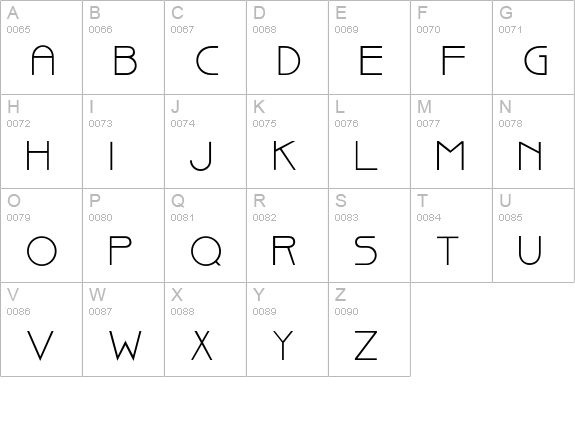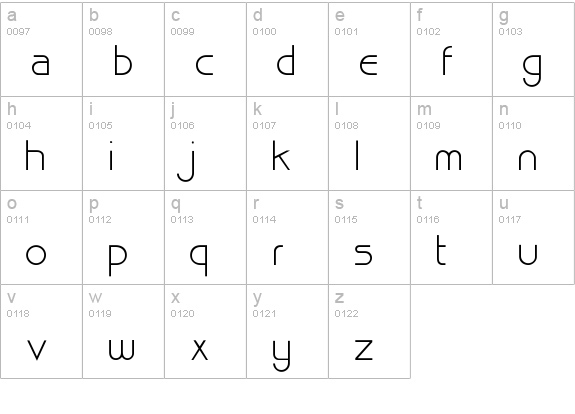
BisqueFont is a whimsical and elegant font that exudes a charming and inviting vibe. Its soft curves and unique design make it perfect for a variety of creative projects, from greeting cards to branding materials. The versatility of BisqueFont allows it to be used in a wide range of contexts, adding a touch of sophistication and playfulness. What's even better is that BisqueFont is available for free download at FontsMarket.com. This means you can easily access this delightful font and incorporate it into your designs without any hassle. Whether you're a seasoned designer or just starting out, BisqueFont is sure to inspire and elevate your projects. Download it today and let your creativity soar with this fantastic free font!